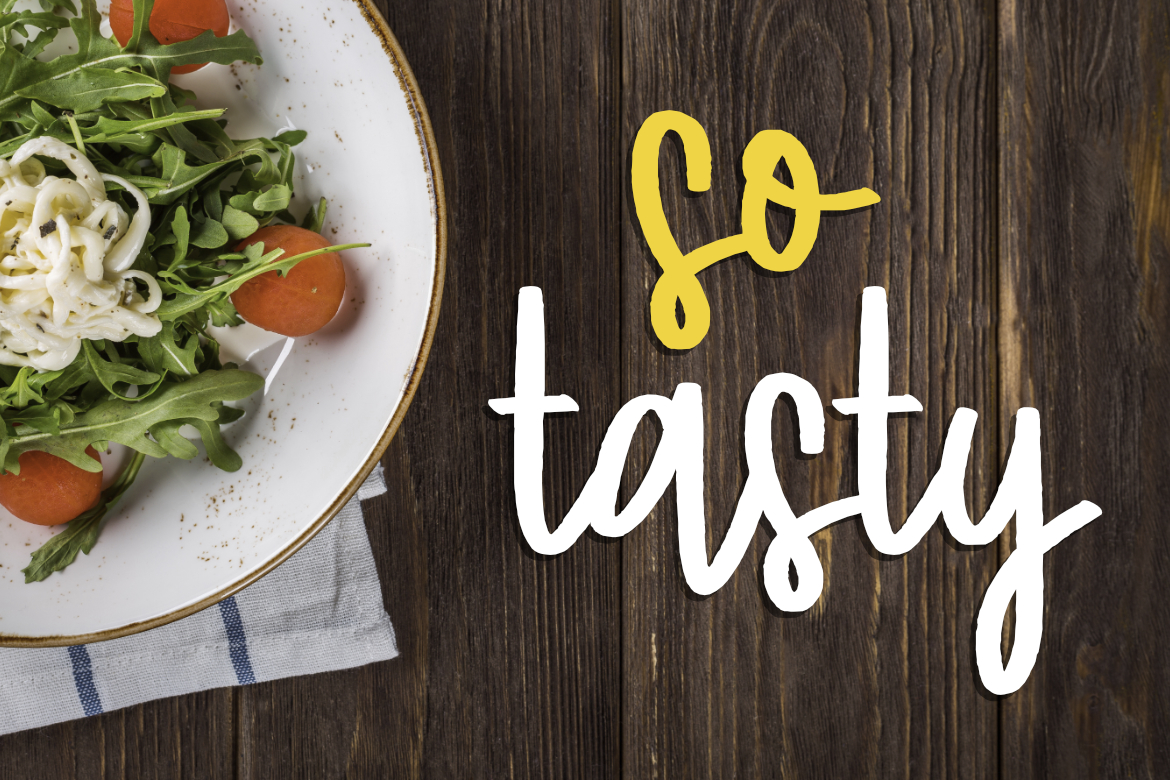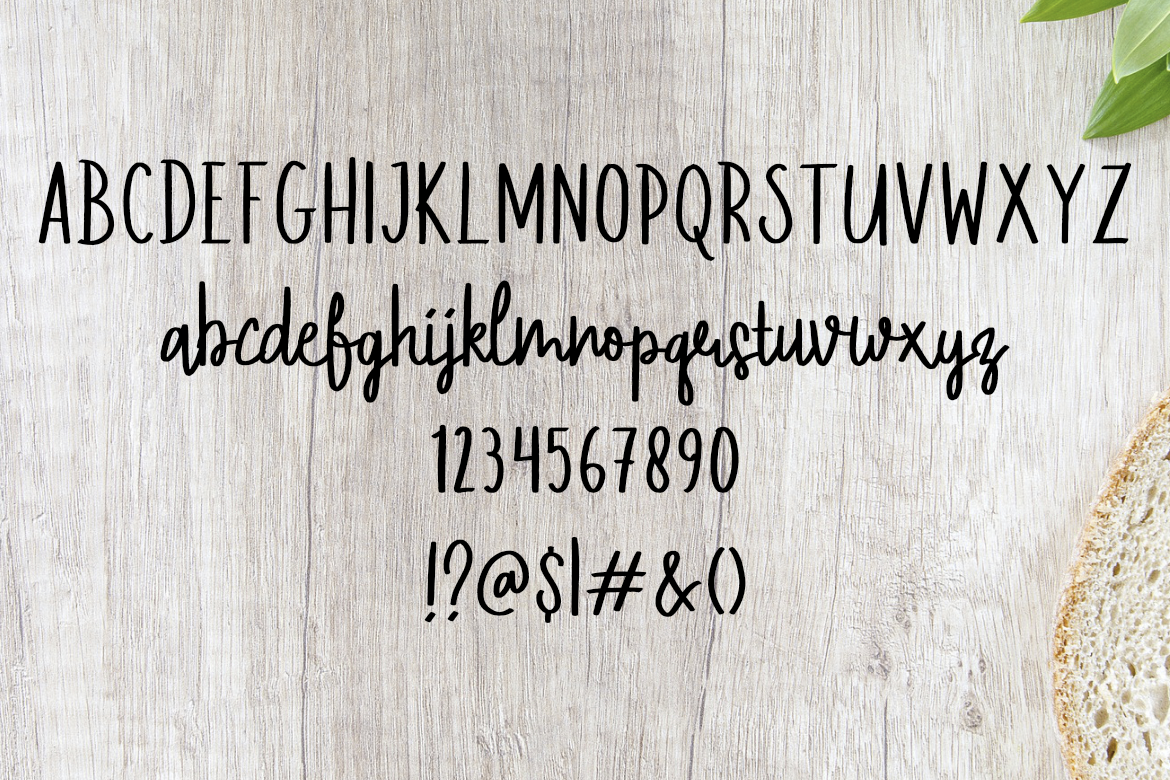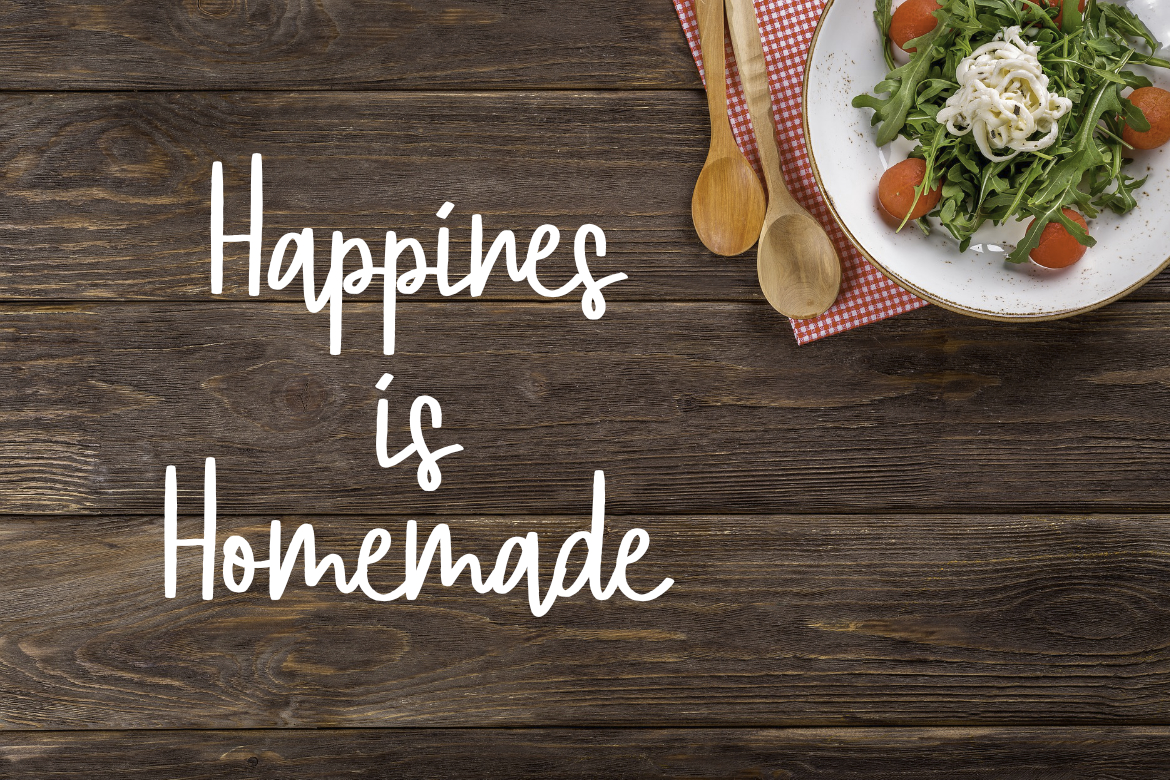
So Tasty Font
About So Tasty Font
So Tasty is a great script font with perfect readability and style. This font is gorgeous and can give a branded look to your designs.